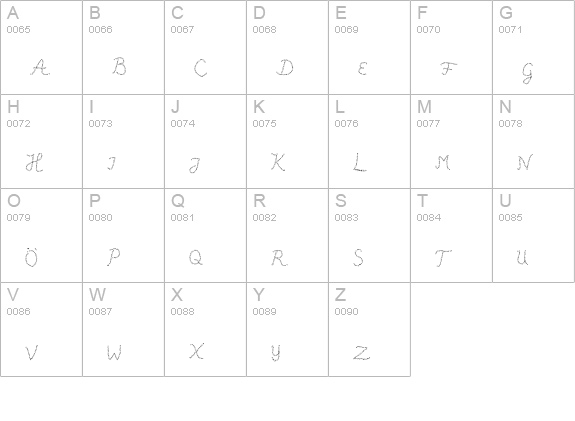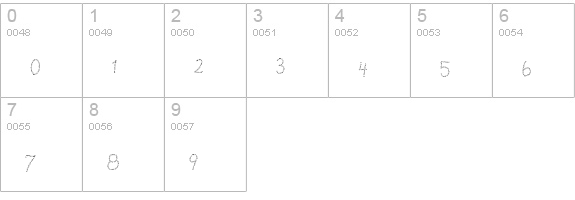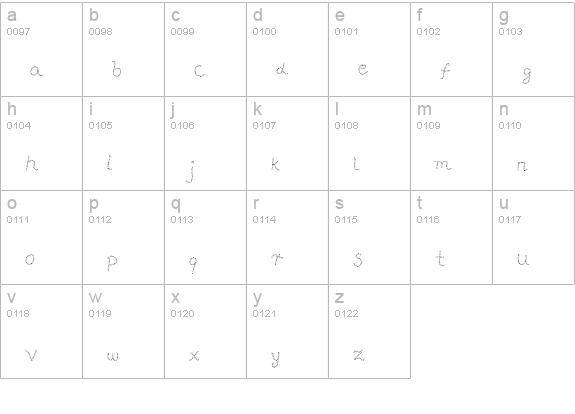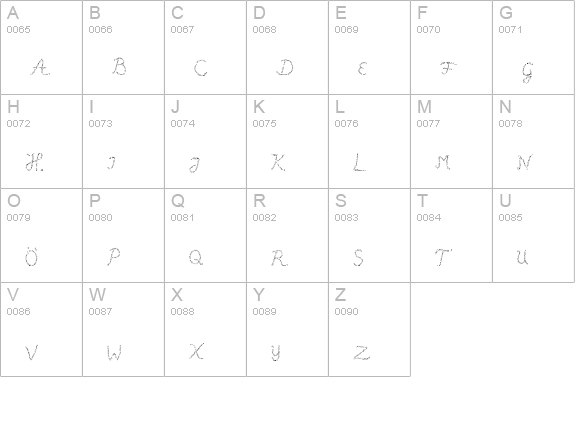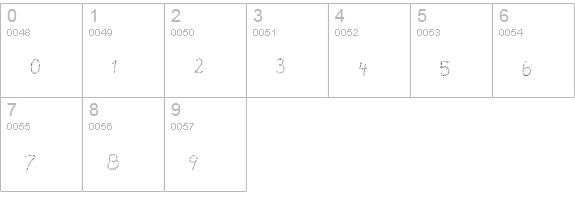
Introducing Pffft font, a whimsical and fun typeface that is sure to bring a playful touch to any design project. This unique font features quirky characters with a hand-drawn look, perfect for adding a touch of personality to your creations. Whether you're working on a children's book, greeting card, or social media graphic, Pffft font is sure to make your text stand out. Best of all, Pffft font is completely free to download at FontsMarket.com. That's right, you can get your hands on this charming font without spending a penny. So why wait? Add a touch of whimsy to your designs with Pffft font today!